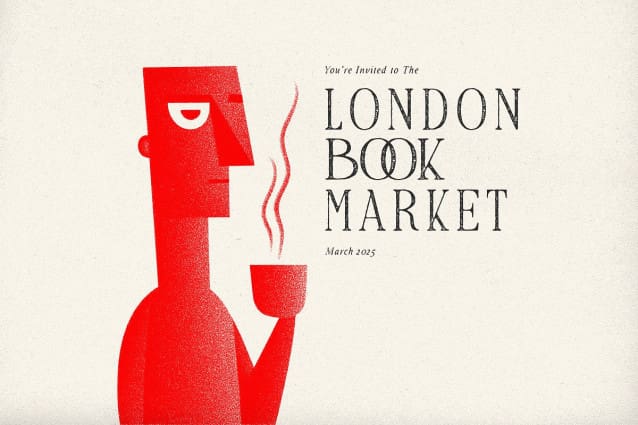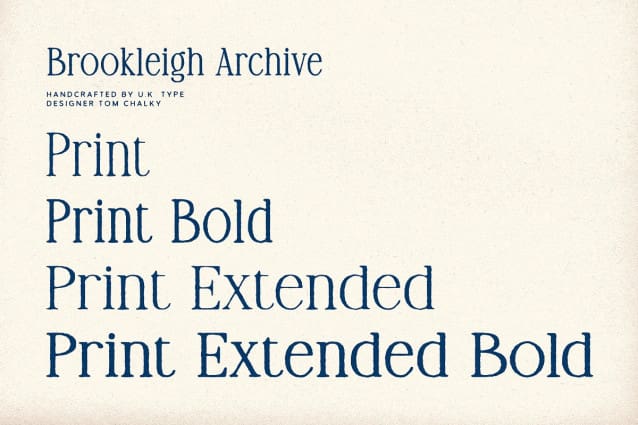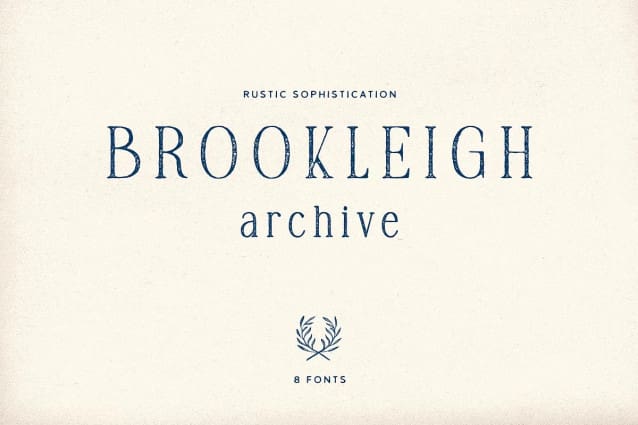
TC Brookleigh Archive Rough Font
TC Brookleigh Archive Rough – Brookleigh Archive – where rustic charm meets refined sophistication. This versatile font family is perfect for projects seeking a touch of authenticity and elegance, whether it’s for wedding invitations, logos, branding, packaging, and more.
Brookleigh Archive builds upon the original Brookleigh font (see my store), adding a fresh twist and unlocking new creative possibilities.